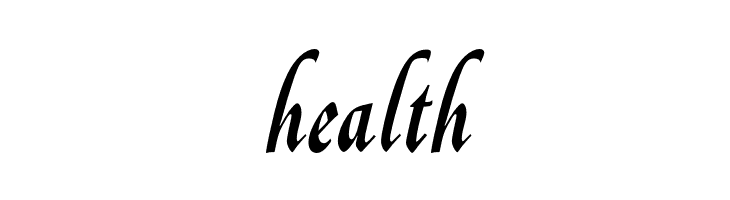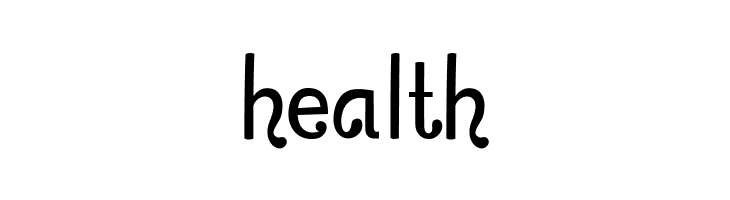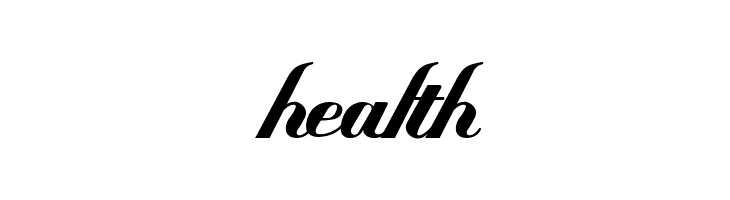
A graceful, cursive script font with elegant loops and flourishes.
An elegant script font with flowing, cursive letterforms and ornate flourishes.
An elegant script font with intricate, flowing letterforms and decorative flourishes.
An elegant, cursive font with decorative swashes and flourishes.
An elegant serif font with high contrast and decorative flourishes.
A whimsical, hand-drawn script font with elegant loops and flourishes.
A whimsical and decorative font with playful curves and unique flourishes.
An elegant script font with flowing, cursive strokes and decorative flourishes.